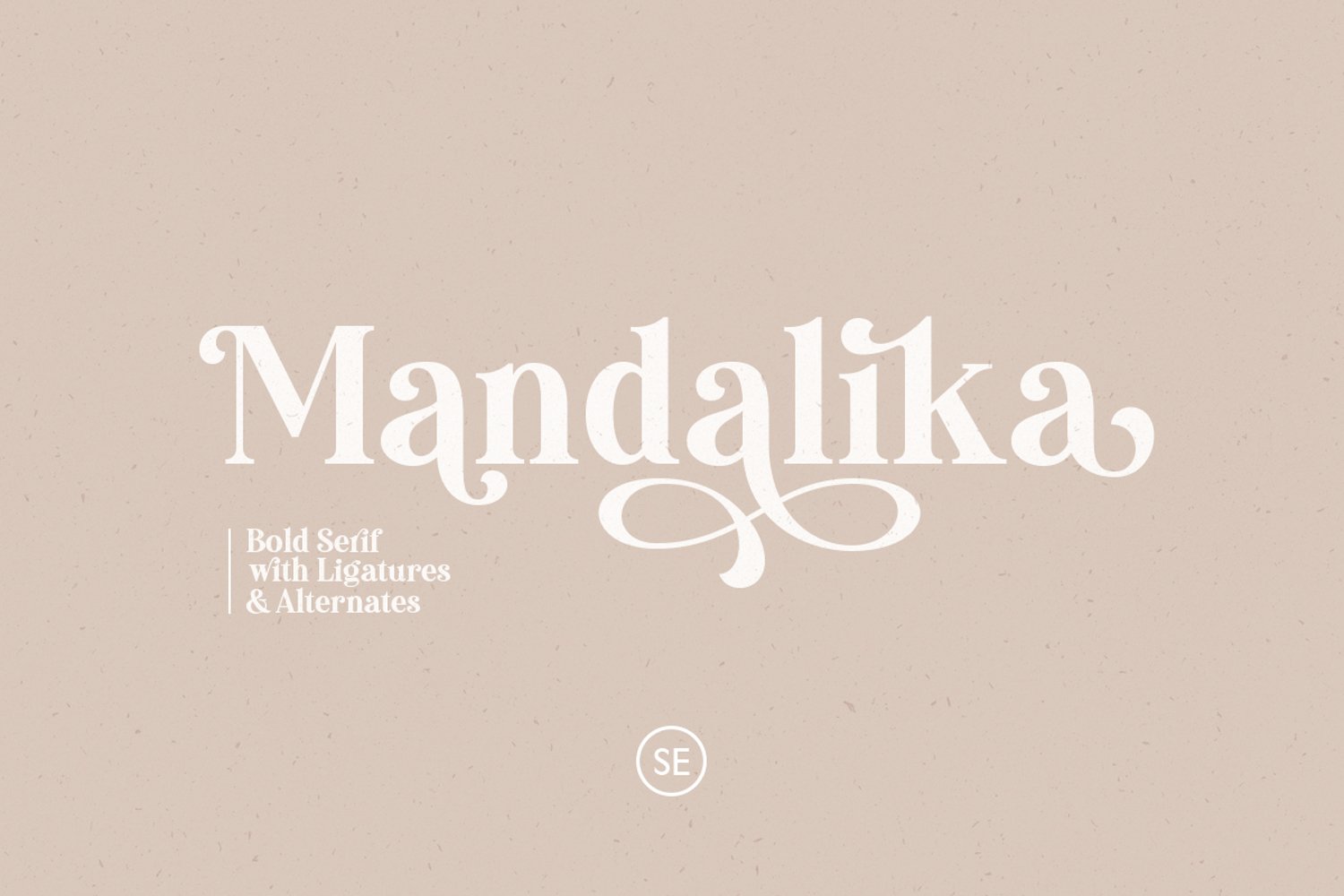
Mandalika is a bold and elegant serif with a bunch of ligatures and alternates that will make your presentation or logo even more stunning and stand out! Mandalika also support Multi Language. and already PUA Encoded!